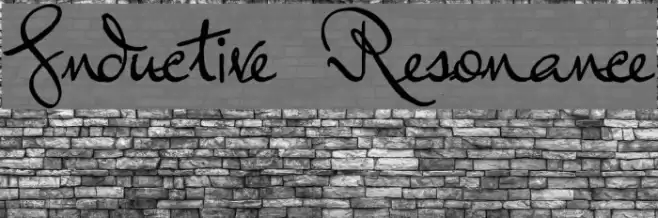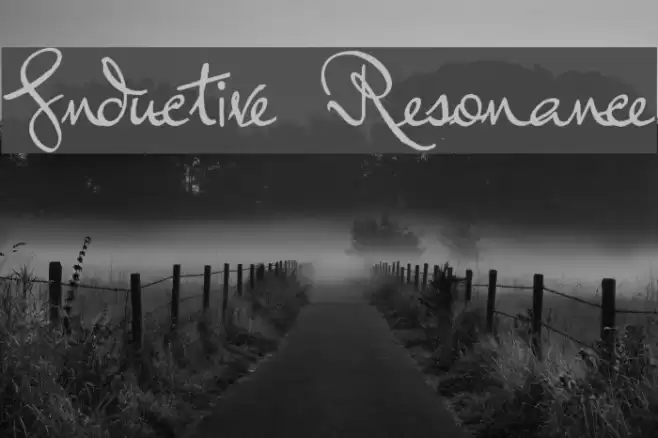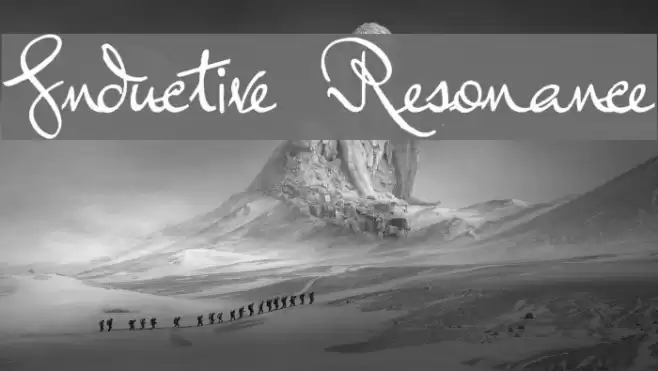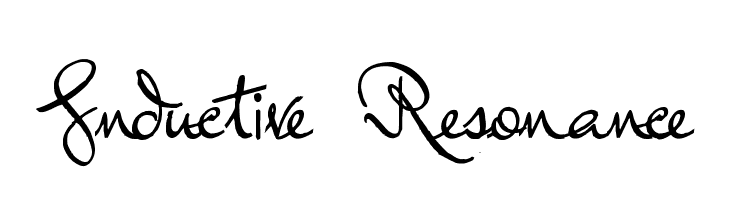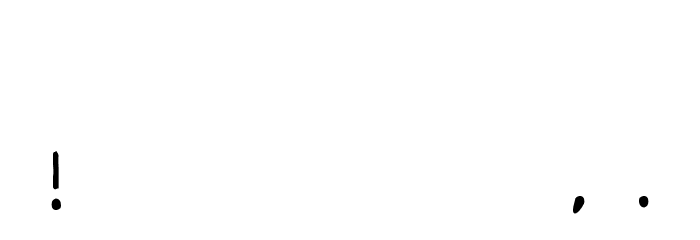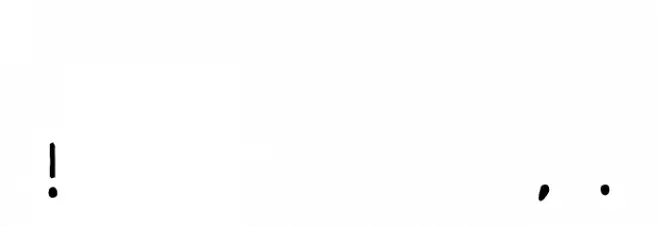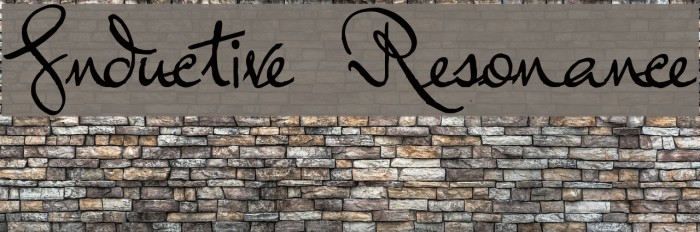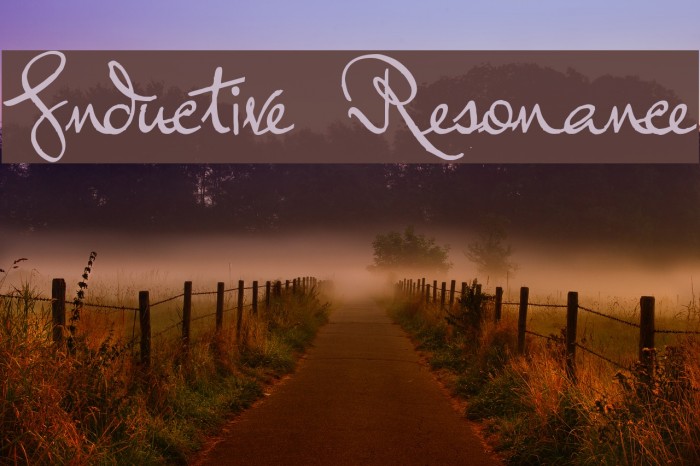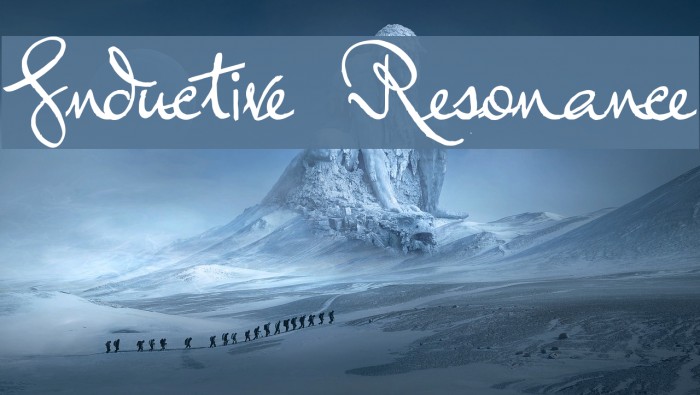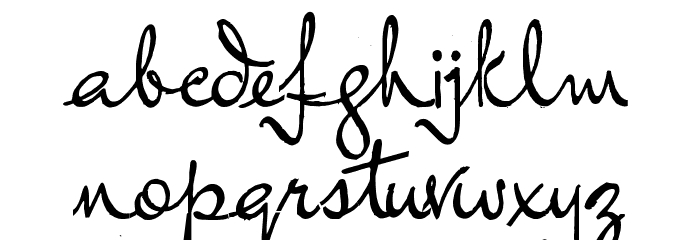
Inductive Resonance Font
Inductive Resonance Description
This font features a flowing, cursive style with elegant, sweeping strokes that give it a handwritten appearance. The letters are connected in a fluid manner, creating a sense of continuity and grace. The uppercase letters are slightly more elaborate, with decorative loops and curves, while the lowercase letters maintain a consistent, smooth flow. The font exudes a sense of sophistication and artistic flair, making it suitable for creative and expressive projects. The characters are well-balanced, with a medium contrast between thick and thin strokes, adding to its legibility and aesthetic appeal.
A flowing, cursive font with elegant, connected strokes and artistic flair from Uncategorized fonts.
- Proposed Projects: Ideal for wedding invitations, greeting cards, personal branding, and artistic projects.
- Use Case: Logos, Invitations, Artistic projects